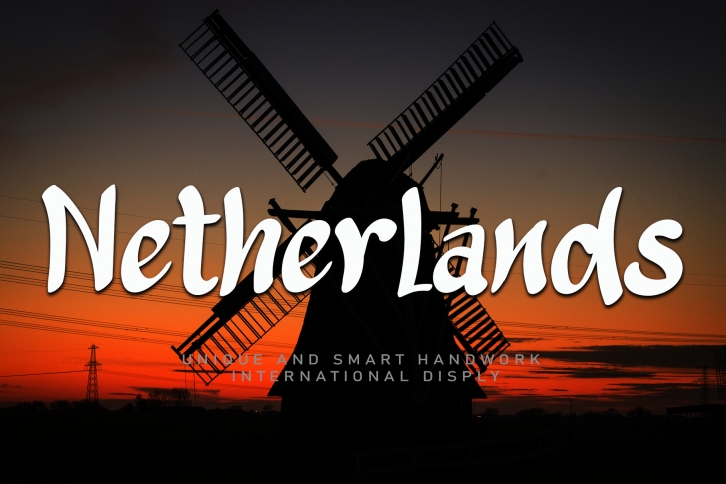
Netherlands is a charming and romantic handwritten font. It has bold characters and a stylish flair that makes it perfect for a wide range of crafty ideas!